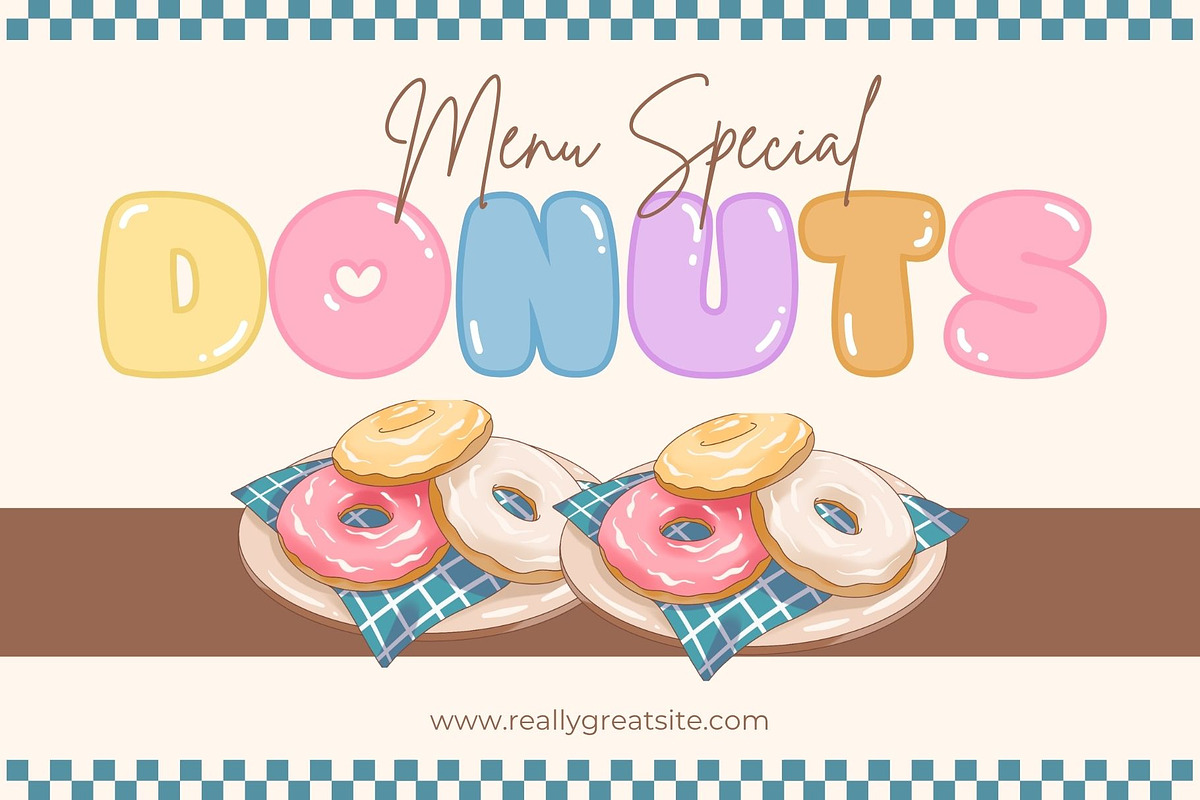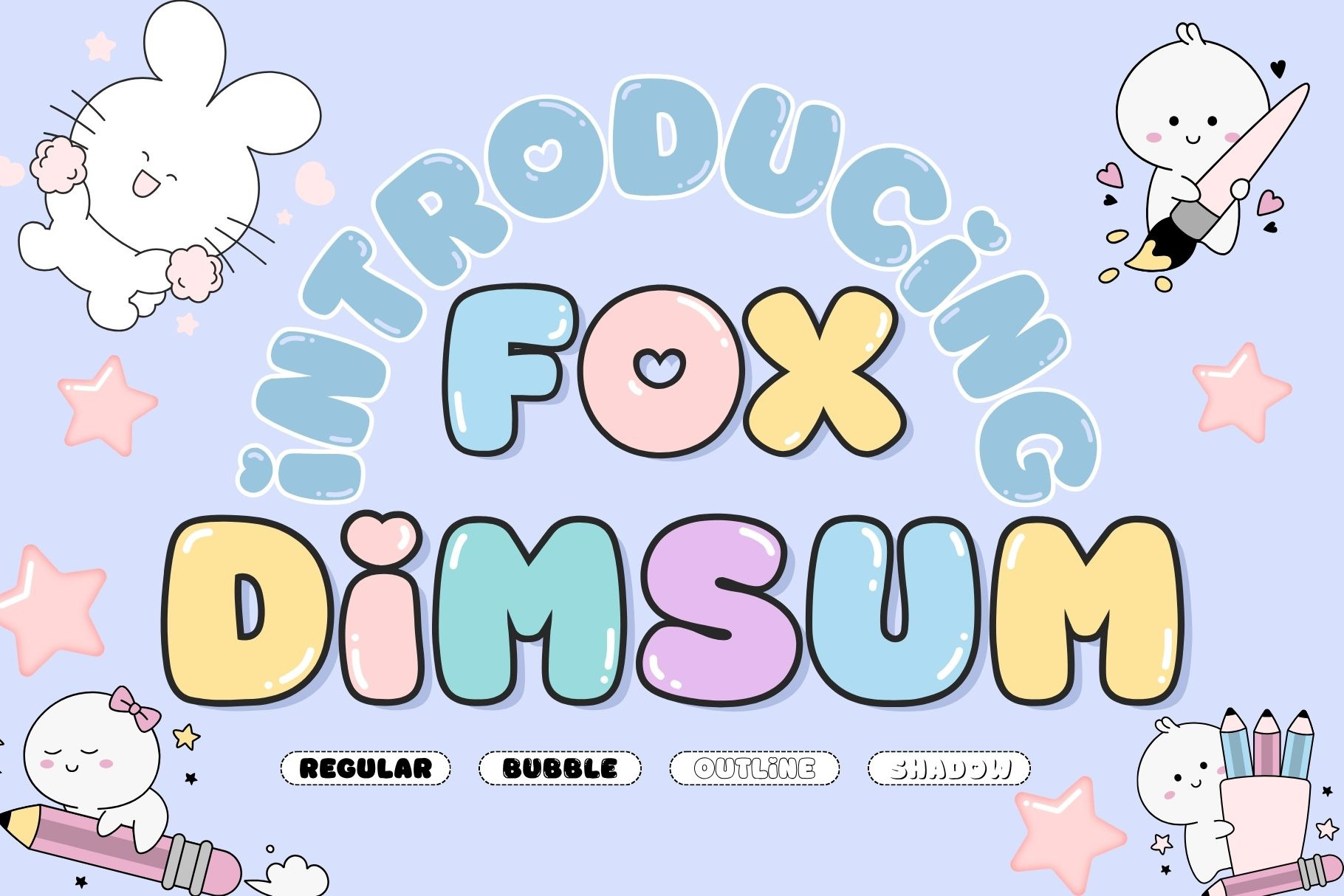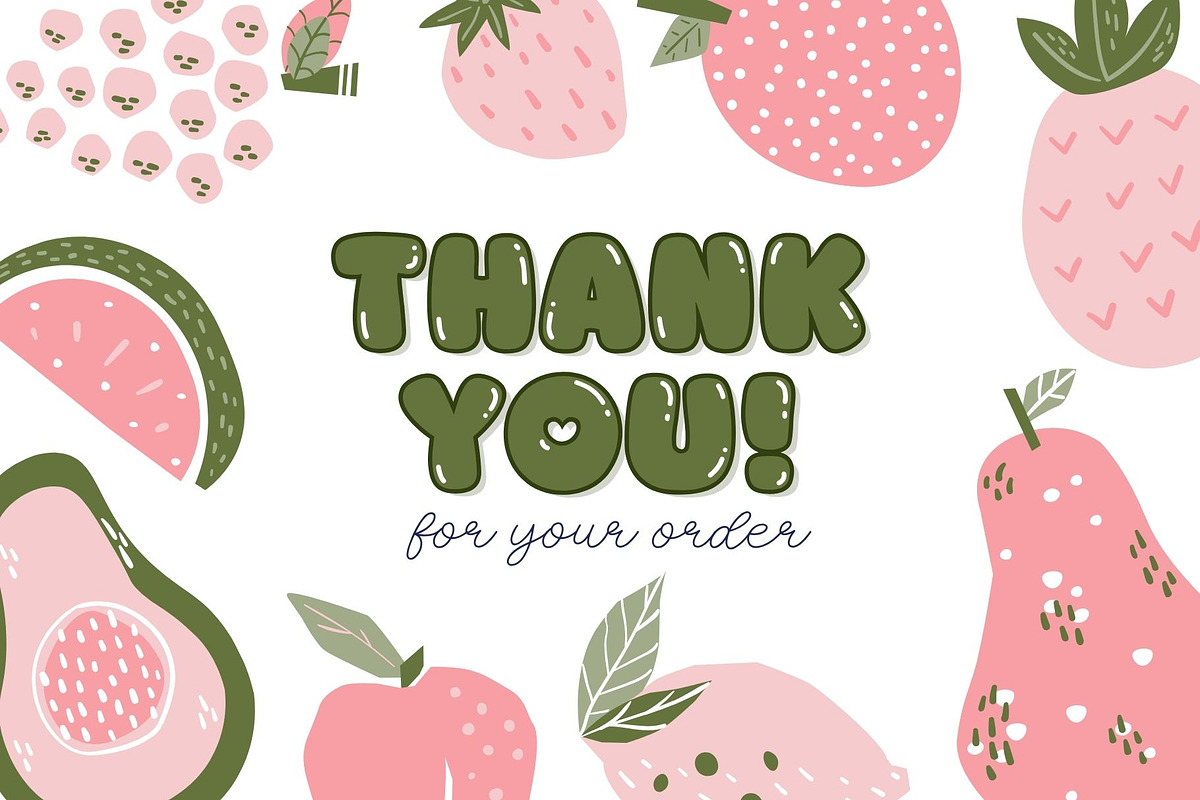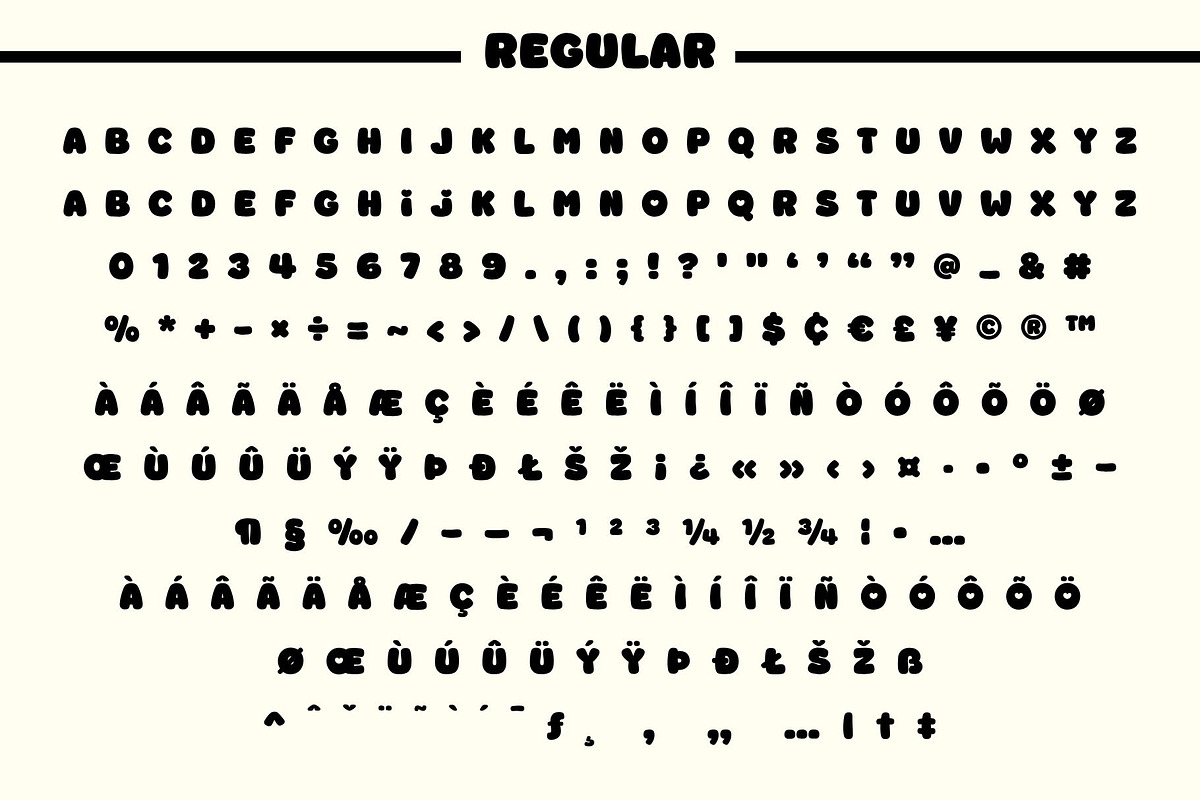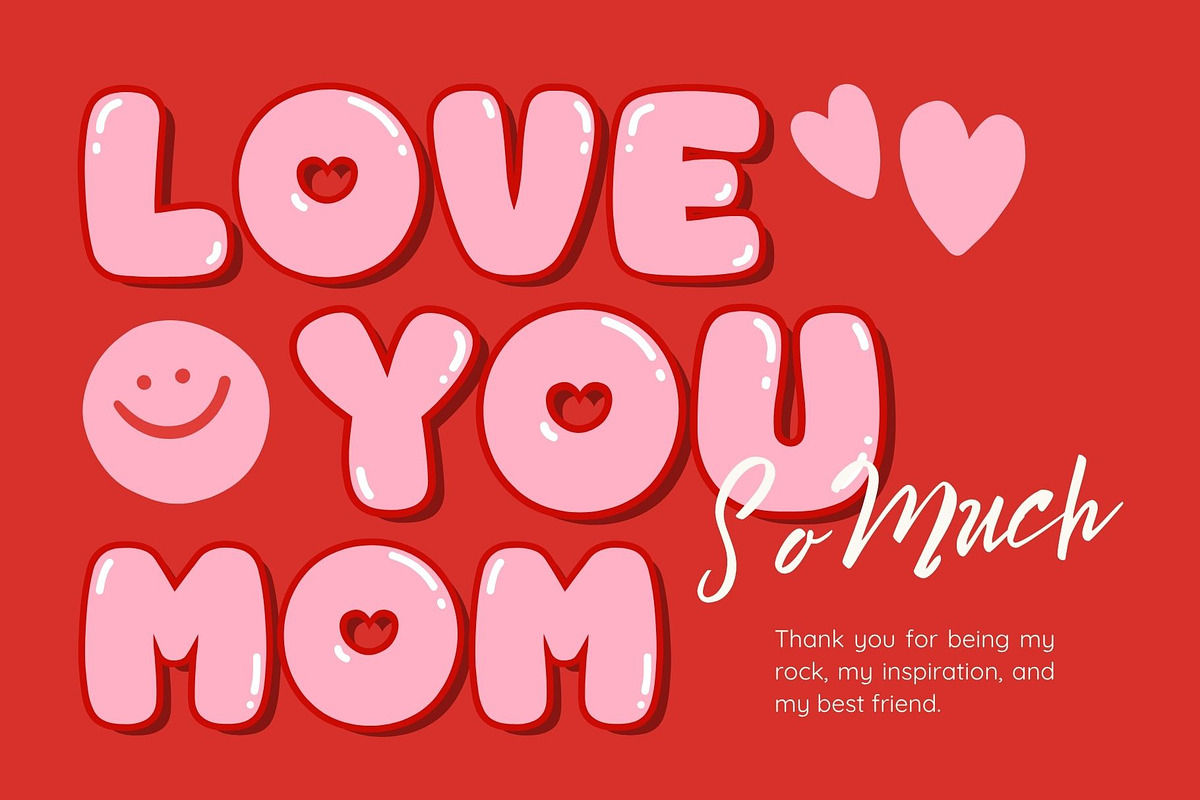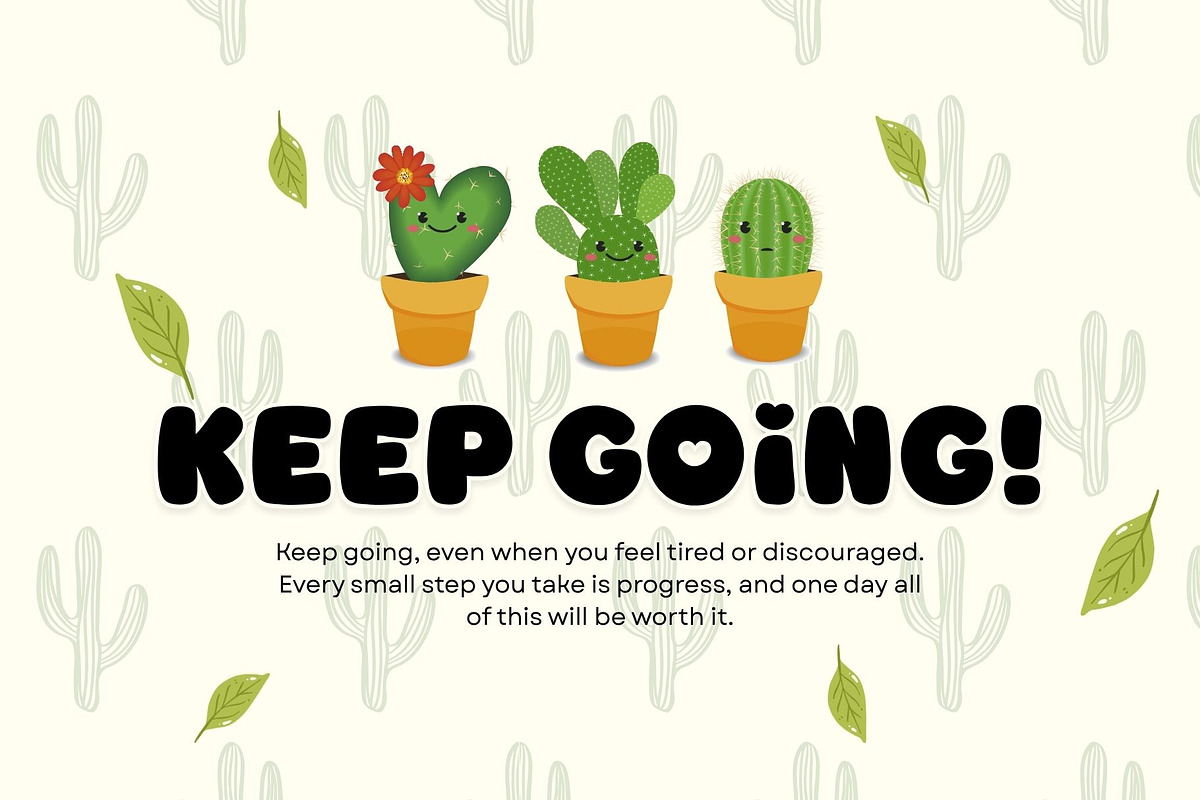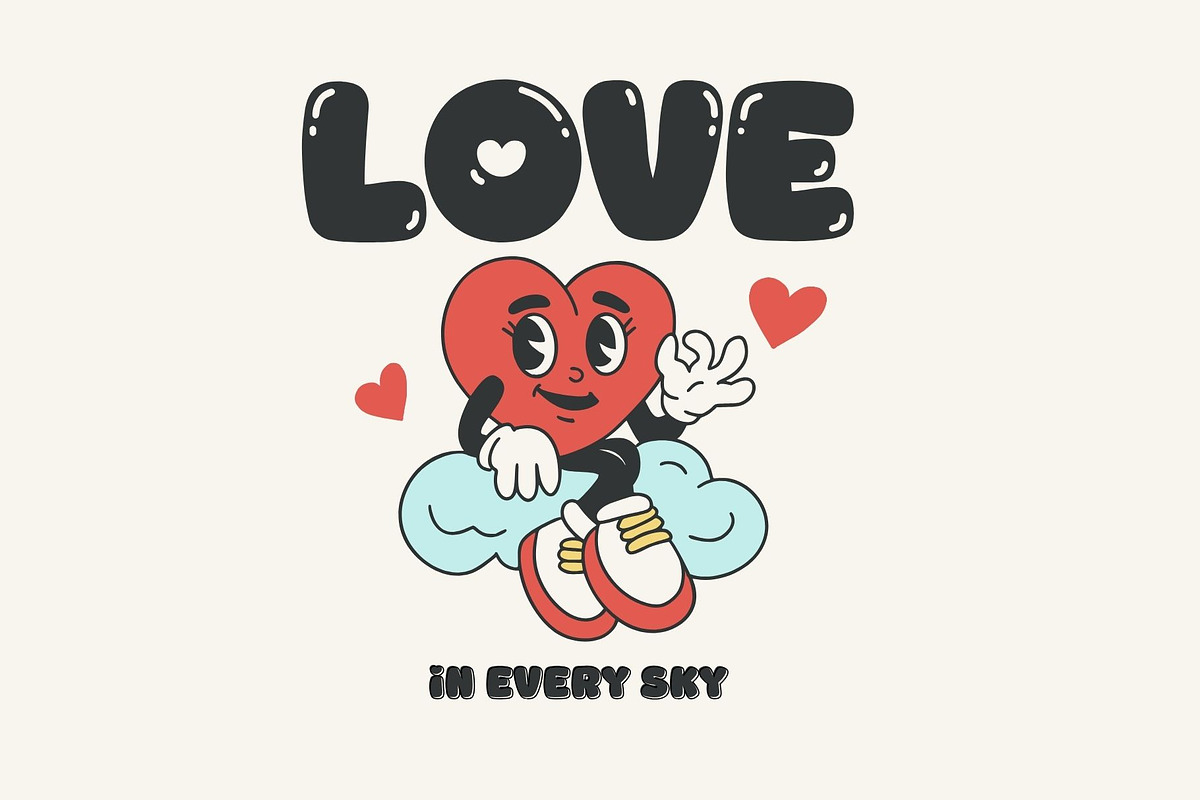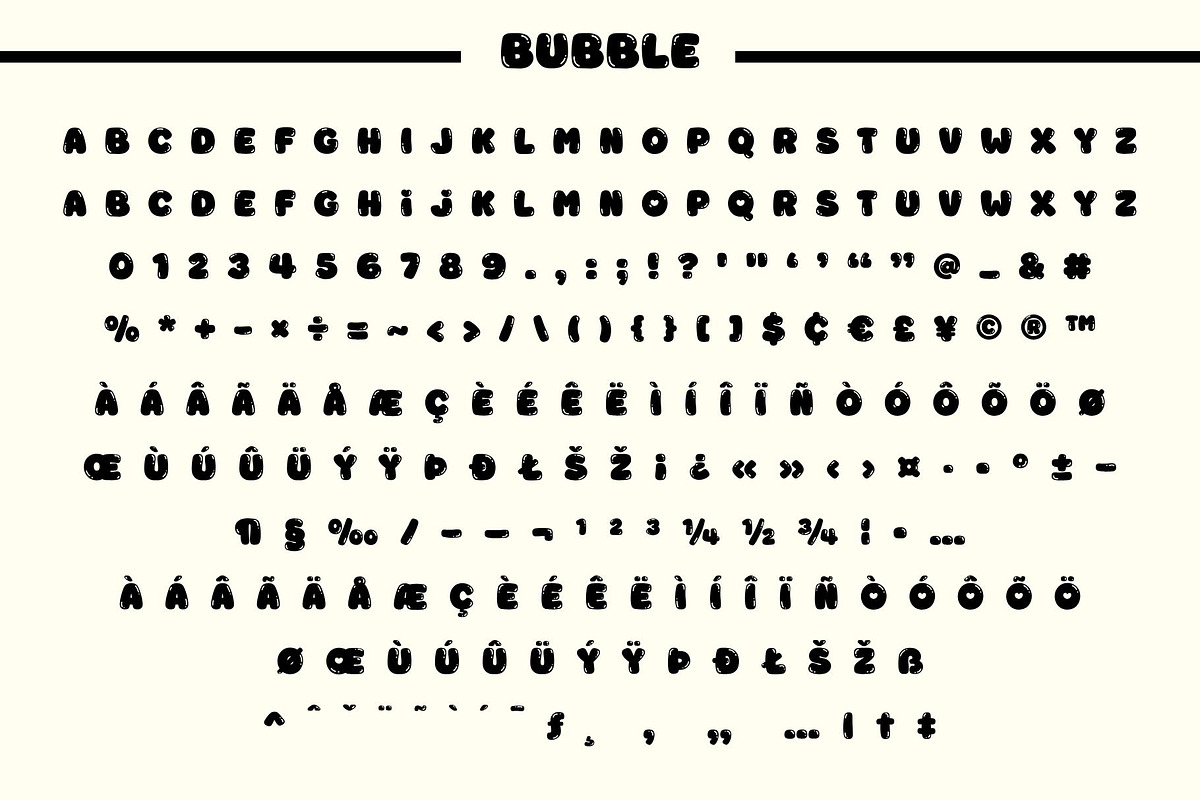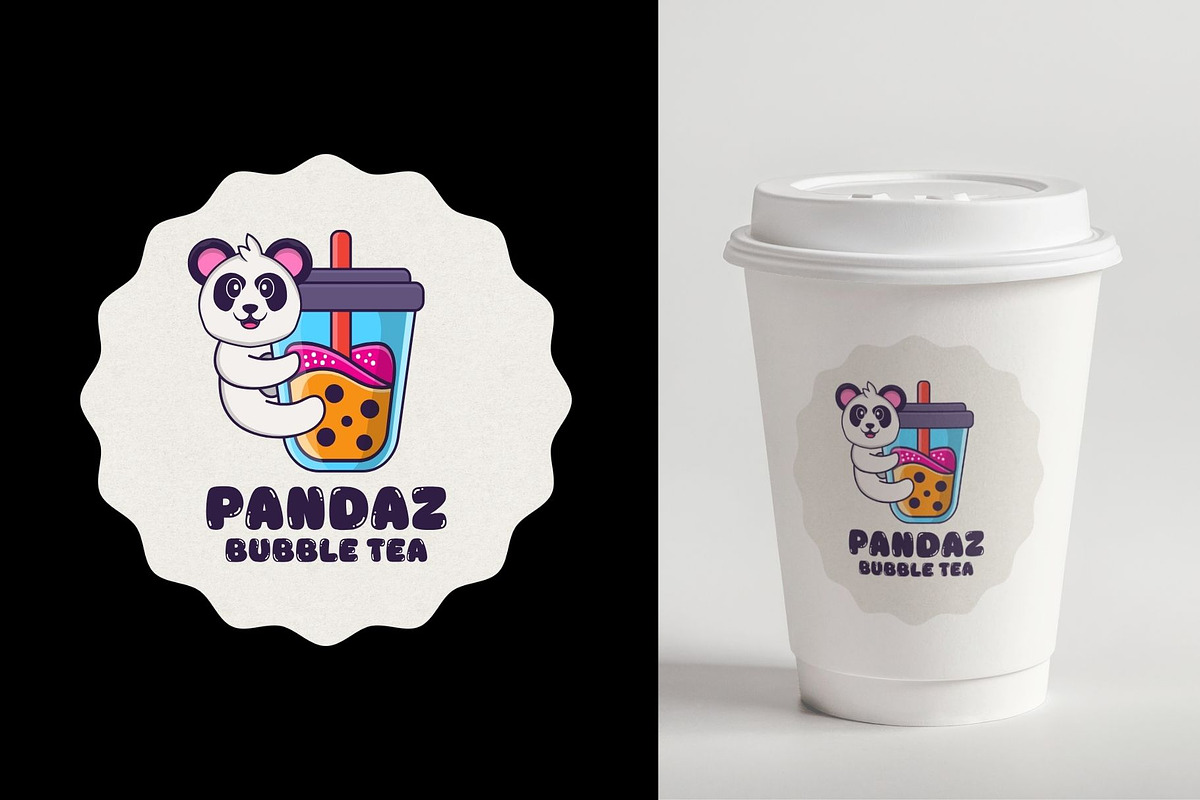
Fox Dimsum Font
A Sweet & Playful Bubble Font for Cute and Happy Creations!
Meet Fox Dimsum, a fun, chunky, and adorable bubble display font designed to add a playful touch to your creative projects. With its bold rounded shapes and cute cartoon-inspired style, Fox Dimsum is perfect for everything from children's designs and stickers to cute branding, food packaging, apparel, and craft projects.
The bold and clean letterforms are especially suitable for Cricut and Silhouette cutting projects, making Fox Dimsum a great choice for crafters, small businesses, and designers.
🎨**_ Perfect For_**
• Cricut & Silhouette cutting projects
• T-shirt and apparel designs
• Stickers and decals
• Children's products
• Kids' crafts
• Birthday decorations
• Party invitations
• Cute logos and branding
• Bubble tea & dessert branding
• Cafe and food packaging
• Bakery designs
• Labels and packaging
• Greeting cards
• Posters and signs
• Social media graphics
• Sublimation projects
• Print-on-demand products
• Digital scrapbooking
• Stationery and planner designs
• Craft projects and DIY creations
Whether you're creating adorable stickers, personalized T-shirts, party decorations, cute packaging, or a fun brand identity, Fox Dimsum is ready to make your designs sweeter, bolder, and more playful.